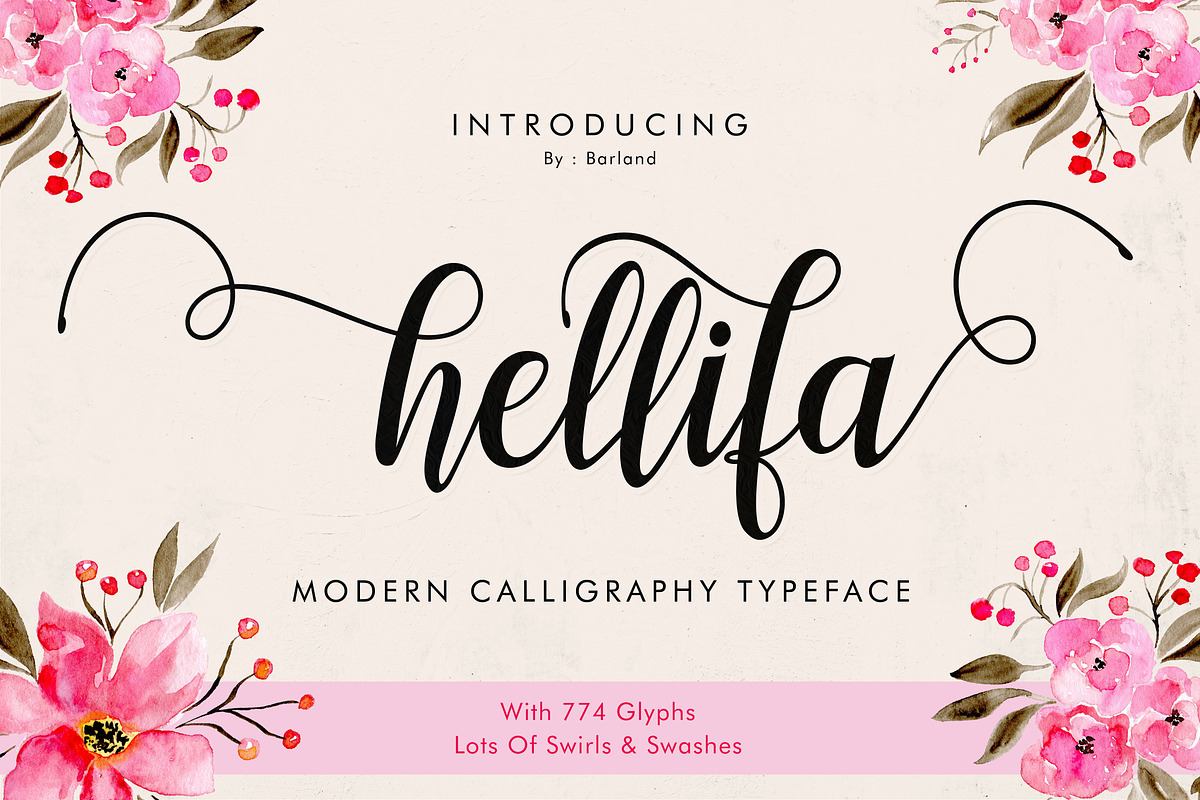
The Hellifa Script Font Free Download is a stylish and elegant typeface that combines a smooth, flowing script with modern sophistication. Perfect for high-end branding, invitations, logos, and elegant event designs, Hellifa brings a touch of refinement and class to any project. Its smooth curves and artistic flourishes make it ideal for creative works that require a personal, handwritten touch with a touch of luxury.
Hellifa Script Font Free Download is ideal for designers looking to add an elegant, fluid touch to their work. Whether you're designing for weddings, luxury brands, or creative projects, this font will elevate your designs with its refined and timeless style. Download it today and bring sophistication and beauty to your creative endeavors!